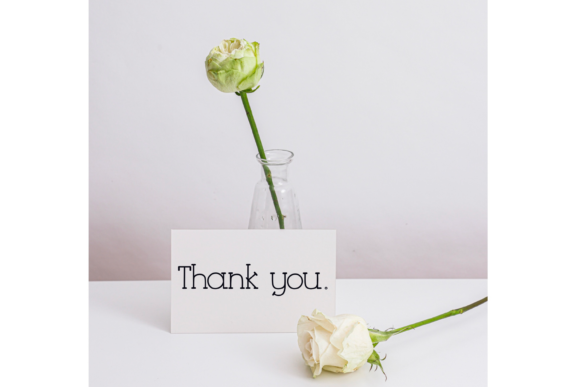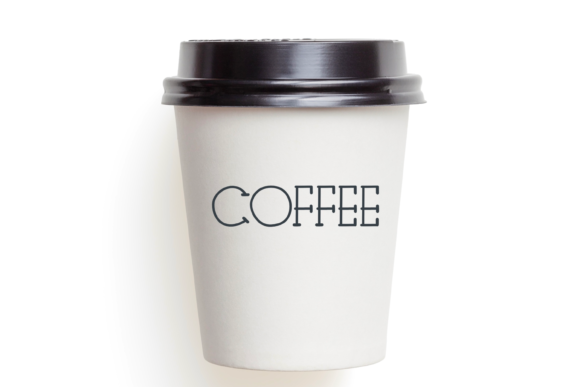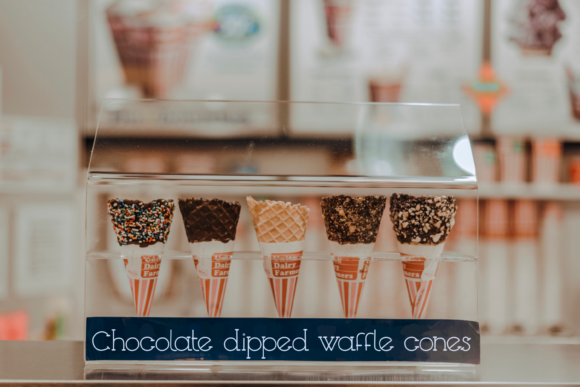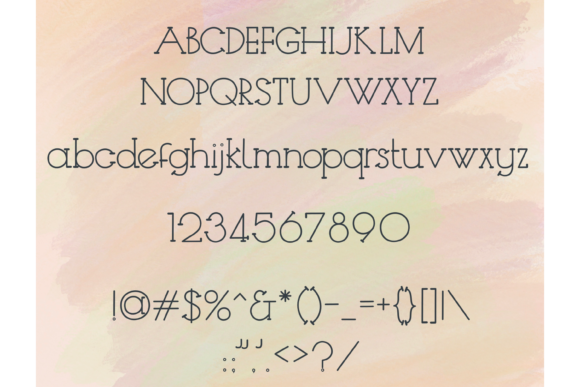
Ginger Stick Font: The Perfect Addition to Your Design Projects
Are you looking for a font that can add a fun and friendly touch to your design projects? Look no further than the Ginger Stick font! This cool and quirky serif font is perfect for designers and crafters who want to add a unique and playful twist to their work.
What is Ginger Stick Font?
Ginger Stick is a serif font that is both adaptable and versatile. Its unique design makes it perfect for a variety of design ideas, from digital projects to print materials. The font’s quirky and fun design ensures that it will stand out from the crowd and add a touch of personality to your work.
Key Features of Ginger Stick Font
- Cool and Quirky Design: The Ginger Stick font has a unique and playful design that is sure to grab attention.
- Serif Font: The font features serifs, which give it a classic and timeless look.
- Adaptable: The font is versatile and can be used on a variety of design projects, from digital to print.
- Fun and Friendly: The font’s design is fun and friendly, making it perfect for projects that require a playful touch.
How to Use Ginger Stick Font
The Ginger Stick font can be used on a variety of design projects, including:
- Digital Projects: Use the font on your website, social media graphics, or digital ads to add a fun and playful touch.
- Print Materials: The font is perfect for print materials such as brochures, flyers, and business cards.
- Crafting Projects: The font is also great for crafters who want to add a personal touch to their projects, such as handmade cards or scrapbooking.
Benefits of Using Ginger Stick Font
Using the Ginger Stick font on your design projects can have several benefits, including:
- Unique Design: The font’s unique design will help your project stand out from the crowd.
- Versatility: The font can be used on a variety of design projects, making it a great addition to your font library.
Tips for Using Ginger Stick Font
Here are some tips for using the Ginger Stick font on your design projects:
- Pair it with Other Fonts: The font pairs well with other fonts, so feel free to experiment with different combinations.
- Use it for Headings: The font is perfect for headings and titles, where its unique design can really shine.
- Experiment with Colors: The font looks great in a variety of colors, so don’t be afraid to experiment and find the perfect color for your project.
| Font Name | Ginger Stick Font |
| Author | Rasa |
The Ginger Stick font is a cool and quirky serif font that is perfect for designers and crafters who want to add a fun and friendly touch to their projects. Its adaptable design makes it versatile and easy to use on a variety of design projects. With its unique design and timeless look, the Ginger Stick font is sure to become a great addition to your font library.